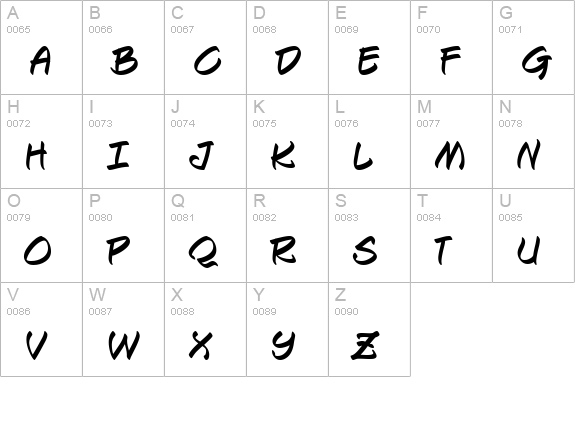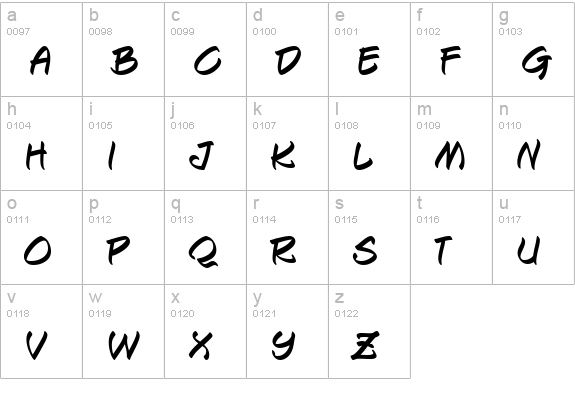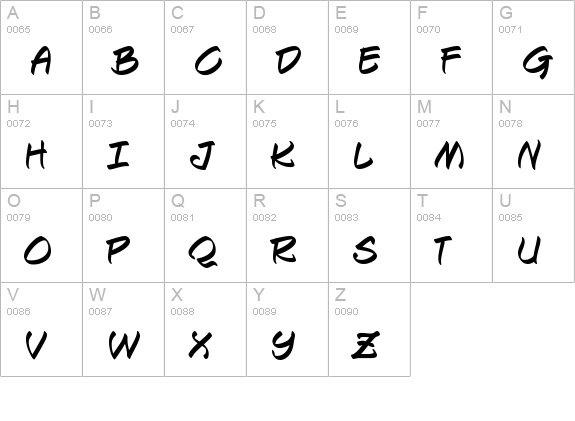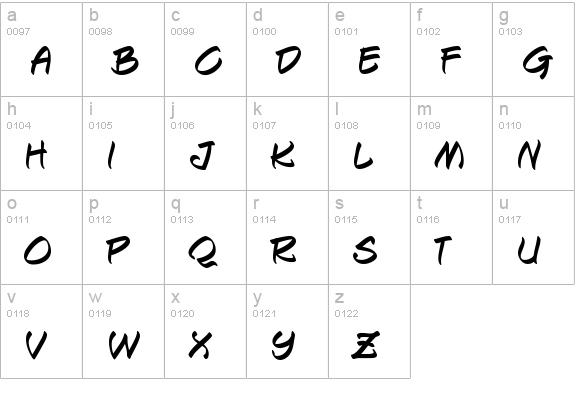
Keelhauled BB Font Details
Introducing Keelhauled BB font, a captivating typeface that combines the elegance of calligraphy with a touch of daring. This font is perfect for those seeking a unique and adventurous look for their designs. With its bold strokes and intricate details, Keelhauled BB font is sure to make a lasting impression. But what sets this font apart from others? Not only does it exude style and creativity, but it also offers something that many designers crave – it is free! Yes, you read that right. Keelhauled BB font is freely available to download at FontsMarket.com. Now, you can add a touch of sophistication to your projects without breaking the bank. Whether you're designing a logo, creating eye-catching headlines, or crafting stunning invitations, this font will elevate your work to new heights. Its versatility allows it to seamlessly adapt to various design styles, making it a go-to choice for both professionals and enthusiasts alike. The attention to detail in Keelhauled BB font is simply mesmerizing. From the elegant curves of each letter to the carefully crafted ligatures, every aspect of this font has been meticulously designed to ensure a visually stunning result. The wide range of characters and glyphs available in this font also enhances its usability, giving you the freedom to explore endless creative possibilities. Imagine the impact your designs will have with Keelhauled BB font. Whether it's on a website, packaging, or any other medium, this font will effortlessly capture attention and leave a lasting impression. Its strong presence and unique aesthetic will make your work stand out from the crowd, setting you apart as a designer with an eye for excellence. So why wait? Download Keelhauled BB font today at FontsMarket.com and embark on a journey of creativity and innovation. With this font in your arsenal, you'll have the power to create stunning designs that leave a lasting impact. Let your imagination run wild and watch as your projects come to life with the help of Keelhauled BB font – the perfect blend of elegance, adventure, and freedom.